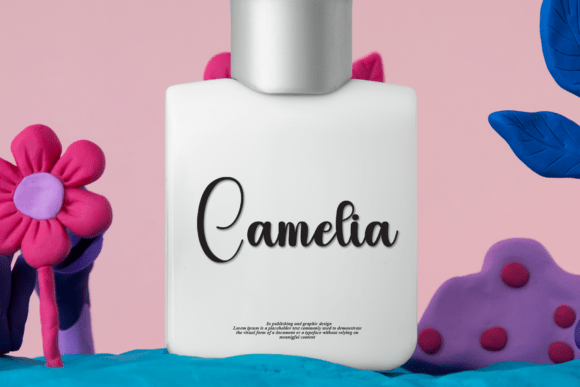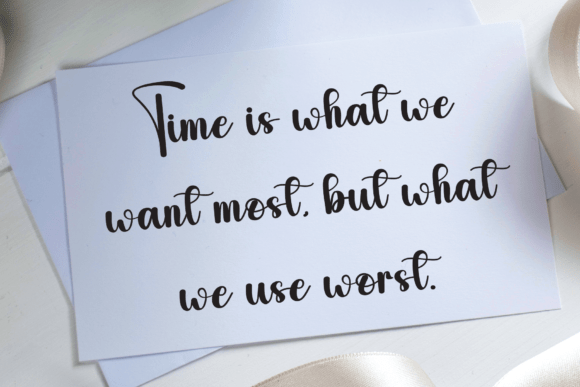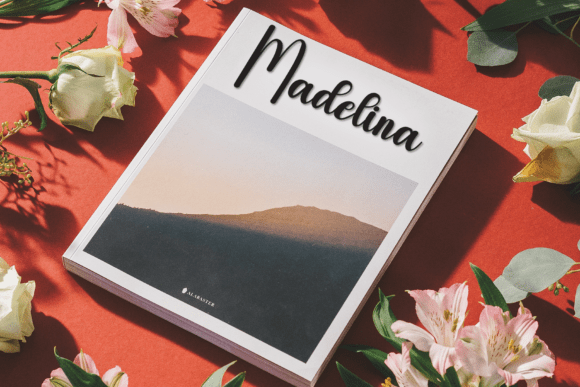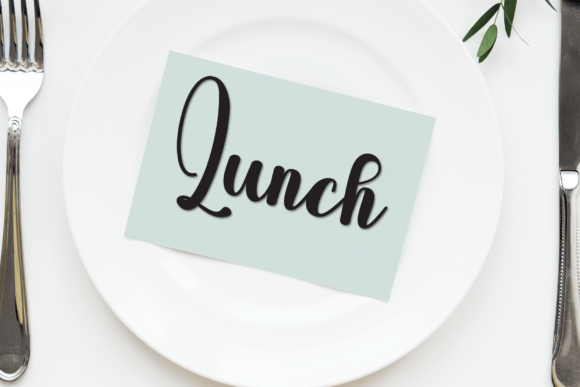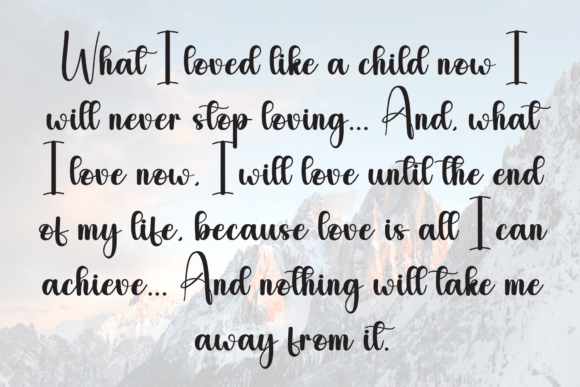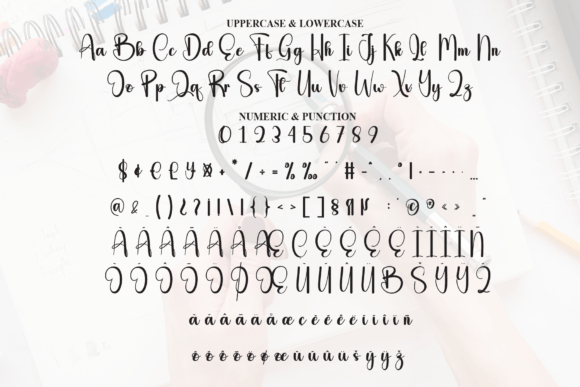
The Autography Font: Elevating Designs with Elegance and Playfulness
Have you ever been in the middle of a design project, pouring your heart and soul into every detail, only to hit a roadblock when it comes to choosing the perfect font? I certainly have. It was during one of those moments, working on a client’s wedding invitation, that I stumbled upon the Autography font. And let me tell you, it was love at first sight! 💕
Autography is a stylish handwritten script font that captures elegance and playfulness in every stroke. With flowing curves and a natural rhythm, it adds a personal, charming touch to invitations, branding, and social media. Its graceful design brings warmth, sophistication, and creativity to any project.
• 💫 Elegant and playful strokes that bring a touch of sophistication to any design
• 🎨 Versatile and adaptable to various design styles and industries
• 📈 Extensive character set, including OpenType features and glyphs
While Autography is an exceptional font, there are a few minor quirks to be aware of:
• 🤔 Some users may find the font’s script style too ornate for certain projects
• ⚠️ Limited use of uppercase letters, which can be a consideration for specific design needs
The Designer Inspiration Behind Autography
Autography was designed with the intention of capturing the essence of handwritten elegance and playfulness. The designer aimed to create a font that would bring a personal touch to digital designs, while maintaining a level of sophistication and refinement.
Q: What type of projects is Autography best suited for?
A: Autography is versatile and can be used for a wide range of projects, including invitations, branding, social media graphics, and more.